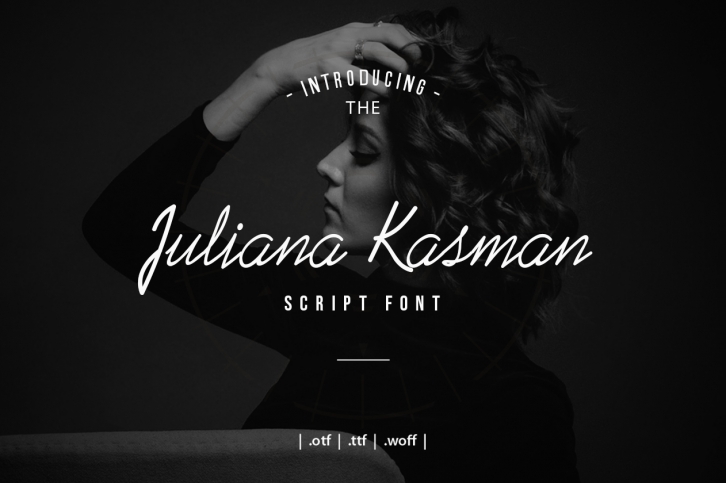
Juliana Kasman Script is a great font that was designed by zavira. Imagine the amount of combinations you can create using this font! The archive is 7.57 MB and it was released on July 24, 2019. Juliana Kasman Script looks beautiful on wedding invitations, greeting cards, logos, posters, labels, t-shirt designs, logos, business cards and is perfect for use in ink or watercolor works, fashion, magazines, packaging and food menus, children's books and more!